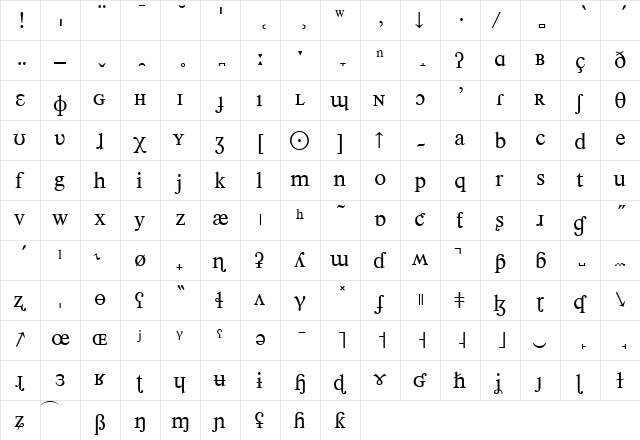
Timeless Becker Phonetic Regular
Design Context for Timeless Becker Phonetic Typeface
Timeless Becker Phonetic is a composed and adaptable typeface that performs quietly and consistently across a wide range of design contexts.
Pro Tip: Use Timeless Becker Phonetic in both headline and body roles to test its range before committing to a single application.